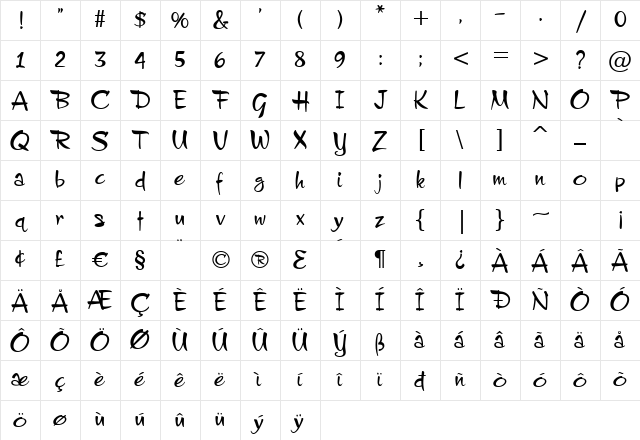
CharadeJF Regular
Design Context for CharadeJF
CharadeJF is a composed and adaptable typeface that performs quietly and consistently across a wide range of design contexts.